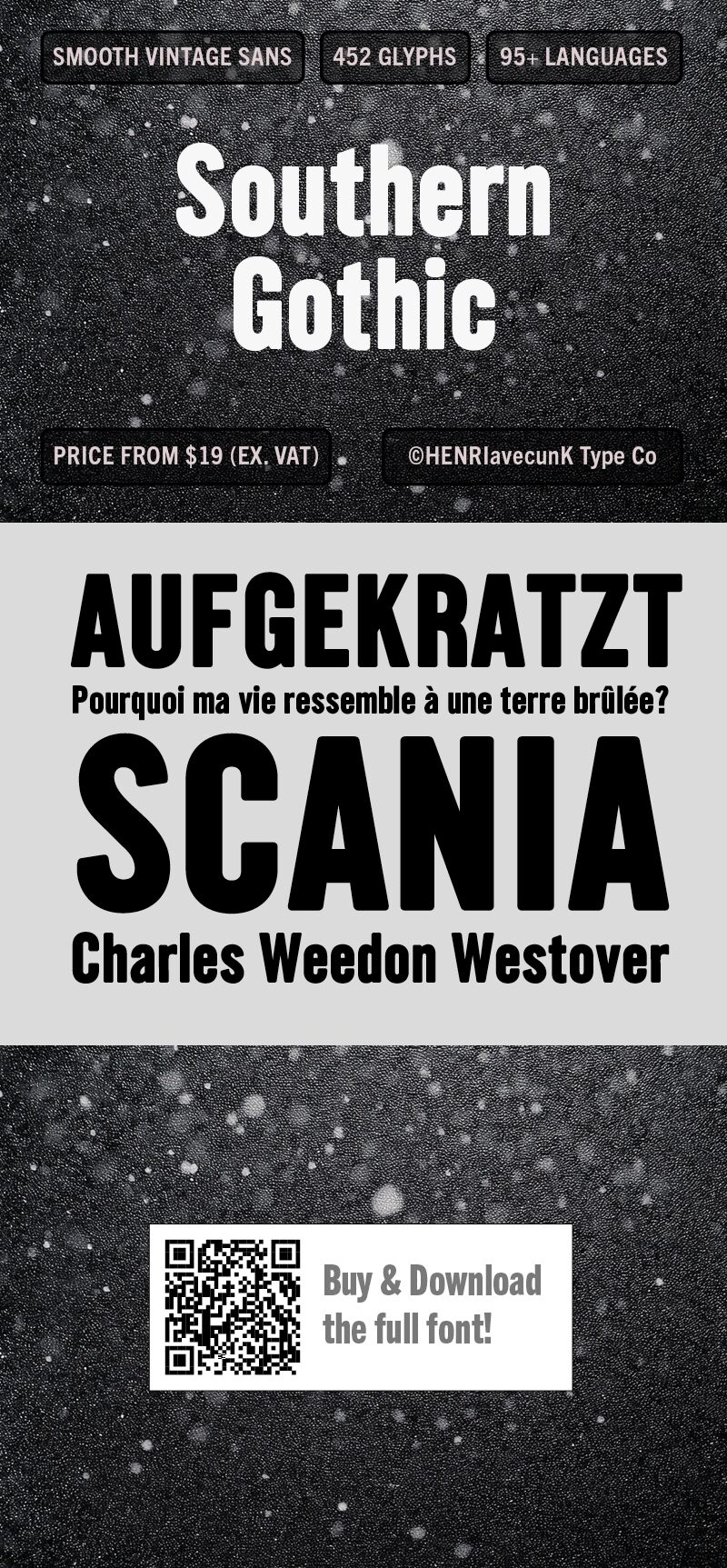
Southern Gothic font by HENRIavecunK of HENRIavecunK Type Co is a free condensed sans serif font with a brooding, poster-ready weight. Its tall, tightly packed shapes feel like ink pressed hard into paper—solid, blunt, and a little theatrical—while the softened corners keep it from turning harsh.
Using Southern Gothic, you’ll get instant impact on music flyers, craft-beer labels, podcast cover art, horror-comedy titles, game splash screens, streetwear graphics, and bold social headers. Set it large with generous tracking so the dense rhythm can breathe, then pair it with a clean geometric sans for body copy; this free font shines when it gets the spotlight.
Southern Gothic is multilingual and includes 452 glyphs. All major Latin-based languages are fully supported, along with many smaller ones.
Selected glyphs, such as g and 3, include alternate designs.
The font was originally designed by HENRIavecunK in 2016 under the name "Hallo Euroboy". In late 2025 and early 2026 it was expanded with additional glyphs, remastered, and renamed.
Southern Gothic is a typeface originally designed by HENRIavecunK in 2016. In 2026, it was expanded with additional glyphs, remastered, and renamed